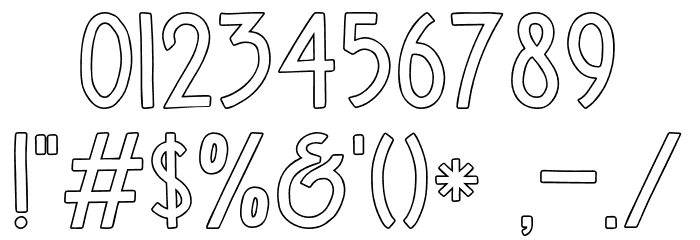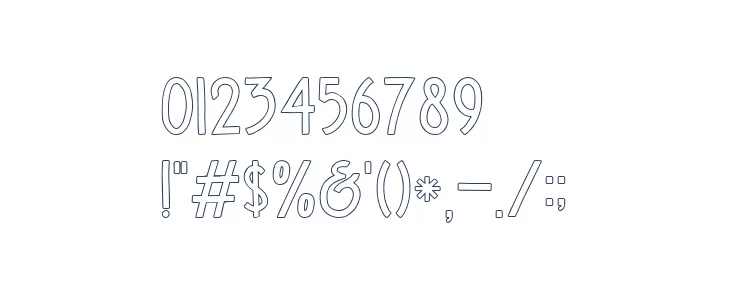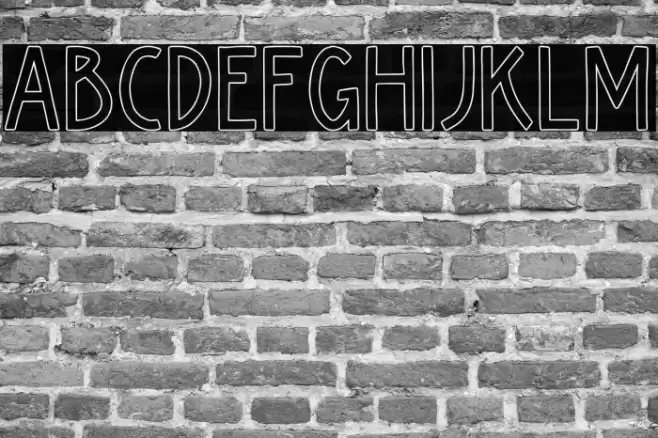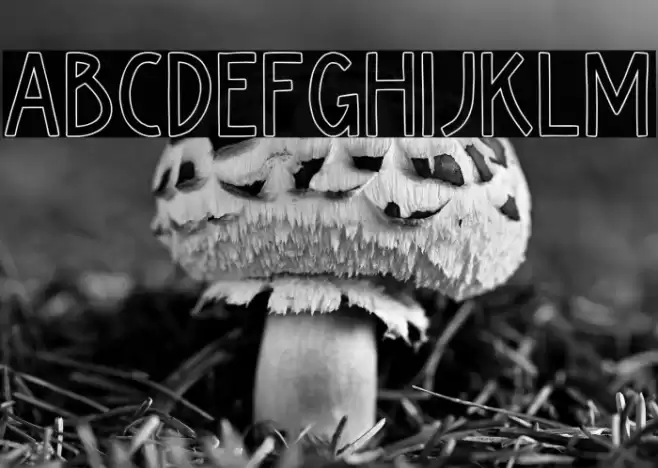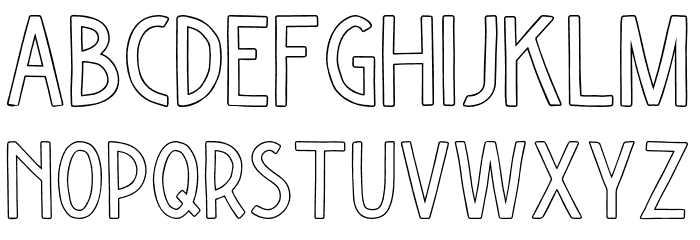
Kiyoka-Outline Font
Kiyoka-Outline Description
This font features a unique outline style that gives it a playful and modern appearance. The characters are bold and well-defined, with a consistent stroke width that maintains clarity and readability. The uppercase and lowercase letters are distinct, with a slight geometric influence that adds to its contemporary feel. The numerals are clear and easy to read, matching the overall style of the alphabet. Special characters are included, maintaining the same outline style, which makes this font versatile for various design needs. Its clean lines and open shapes make it suitable for both digital and print media.
| Proposed Projects | Ideal for posters, logos, branding, and headlines where a modern and playful touch is desired. |